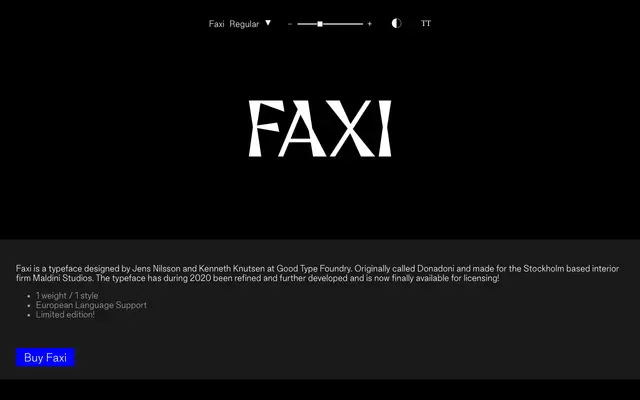
Faxi
Good Type Foundry · Jens Nilsson, Kenneth Knutsen · 2020
A single-weight display typeface originally commissioned for Stockholm interior firm Maldini Studios, refined and released for licensing in 2020.
Designed by Jens Nilsson and Kenneth Knutsen at Good Type Foundry, Faxi began life as a bespoke typeface called Donadoni for Maldini Studios in Stockholm. The family consists of one weight and one style, with broad European language support across its uppercase, lowercase, accented and symbol character sets. Its origins in interior branding give it a measured, considered character suited to editorial and identity work where restraint is a virtue.
Faxi is an uppercase-only display typeface with a strong decorative character, originally commissioned for an interior design firm, suggesting expressive display use rather than text setting.